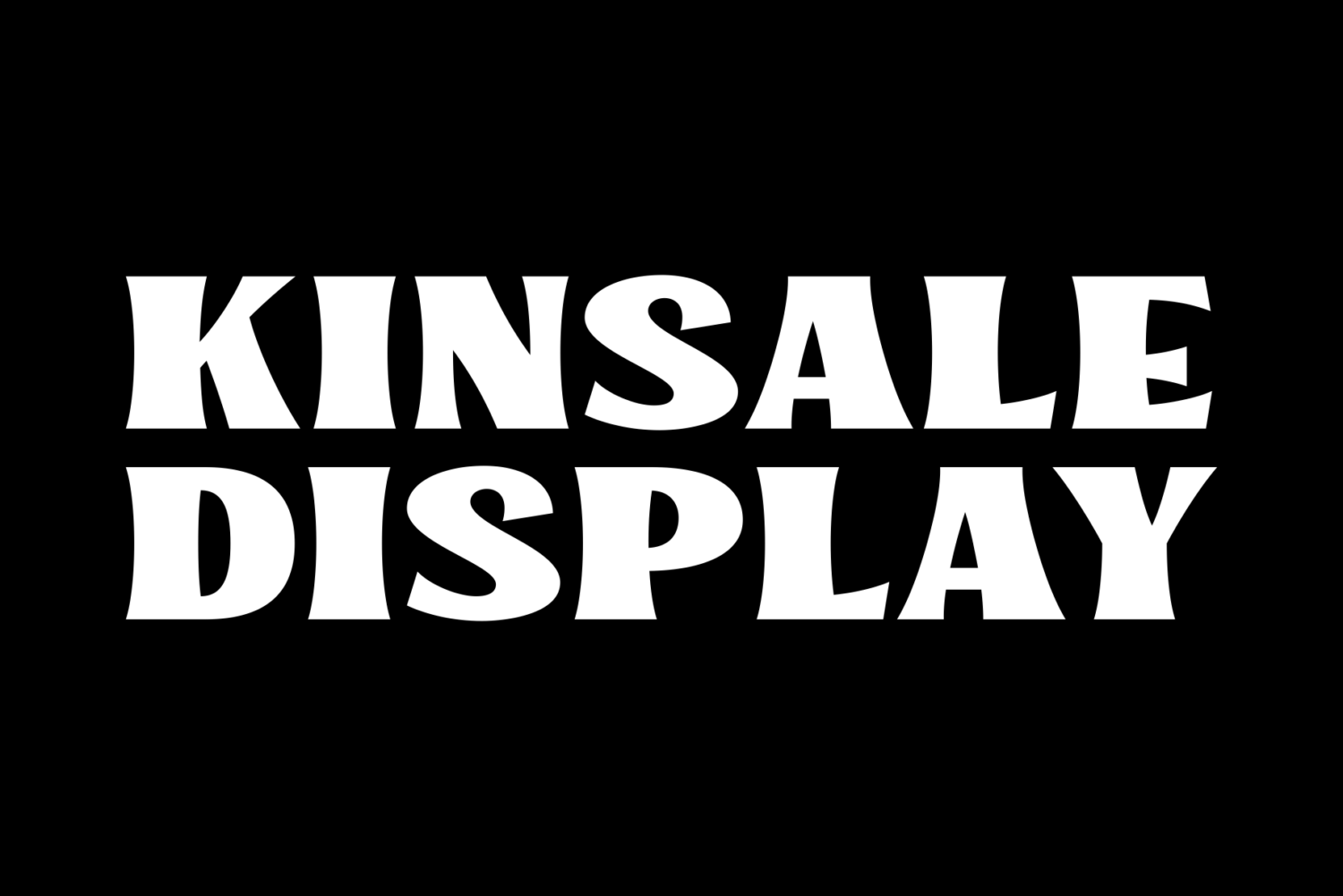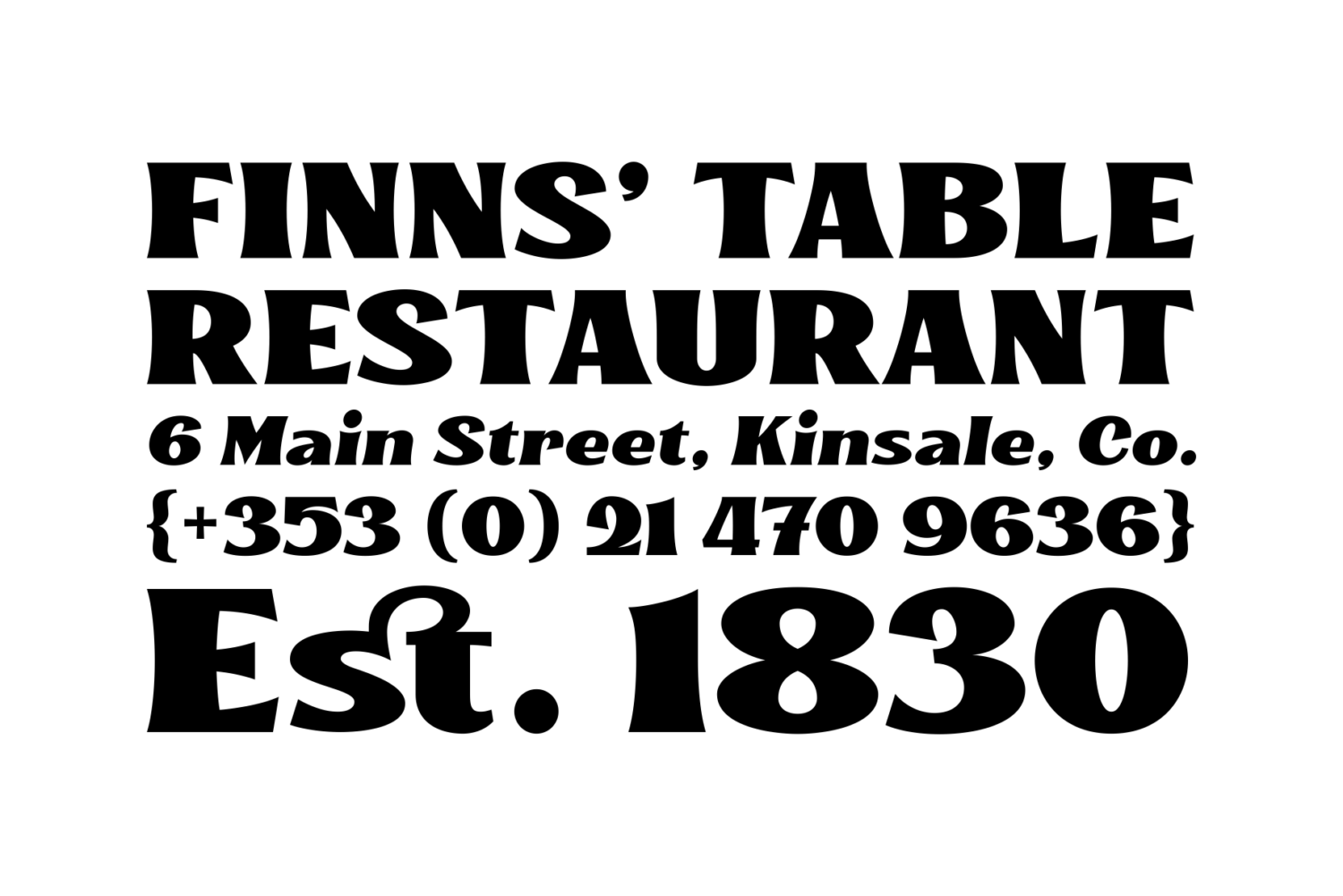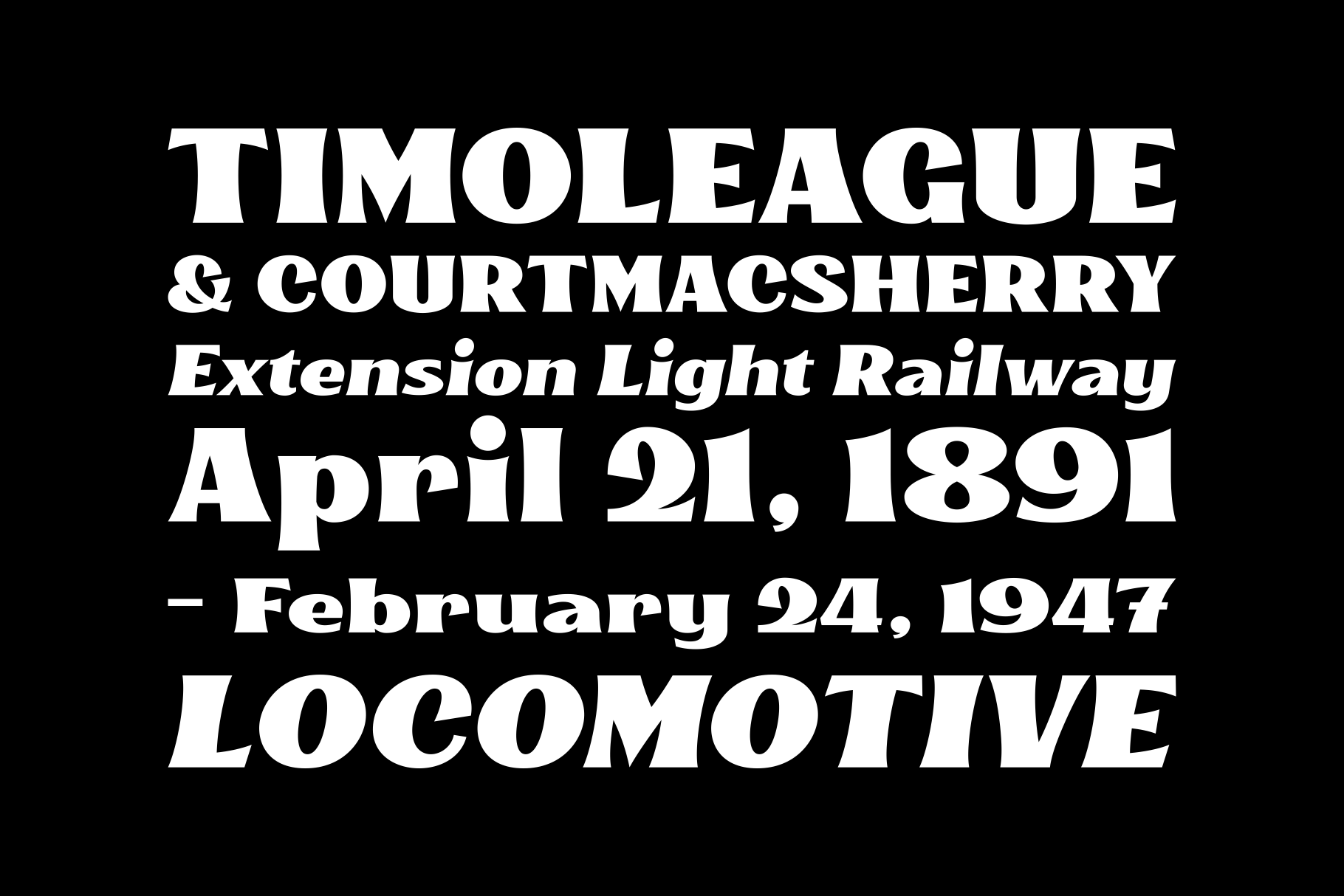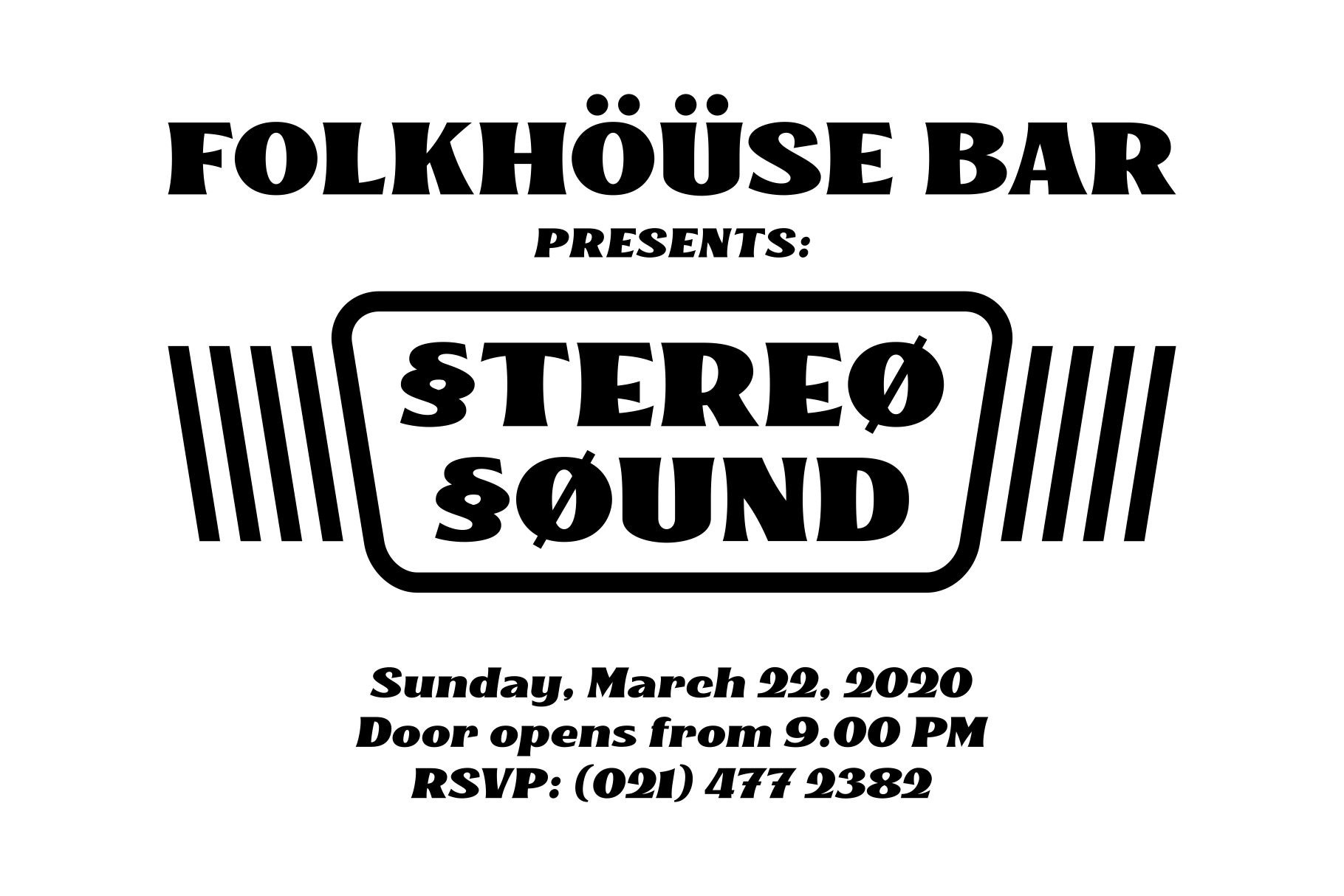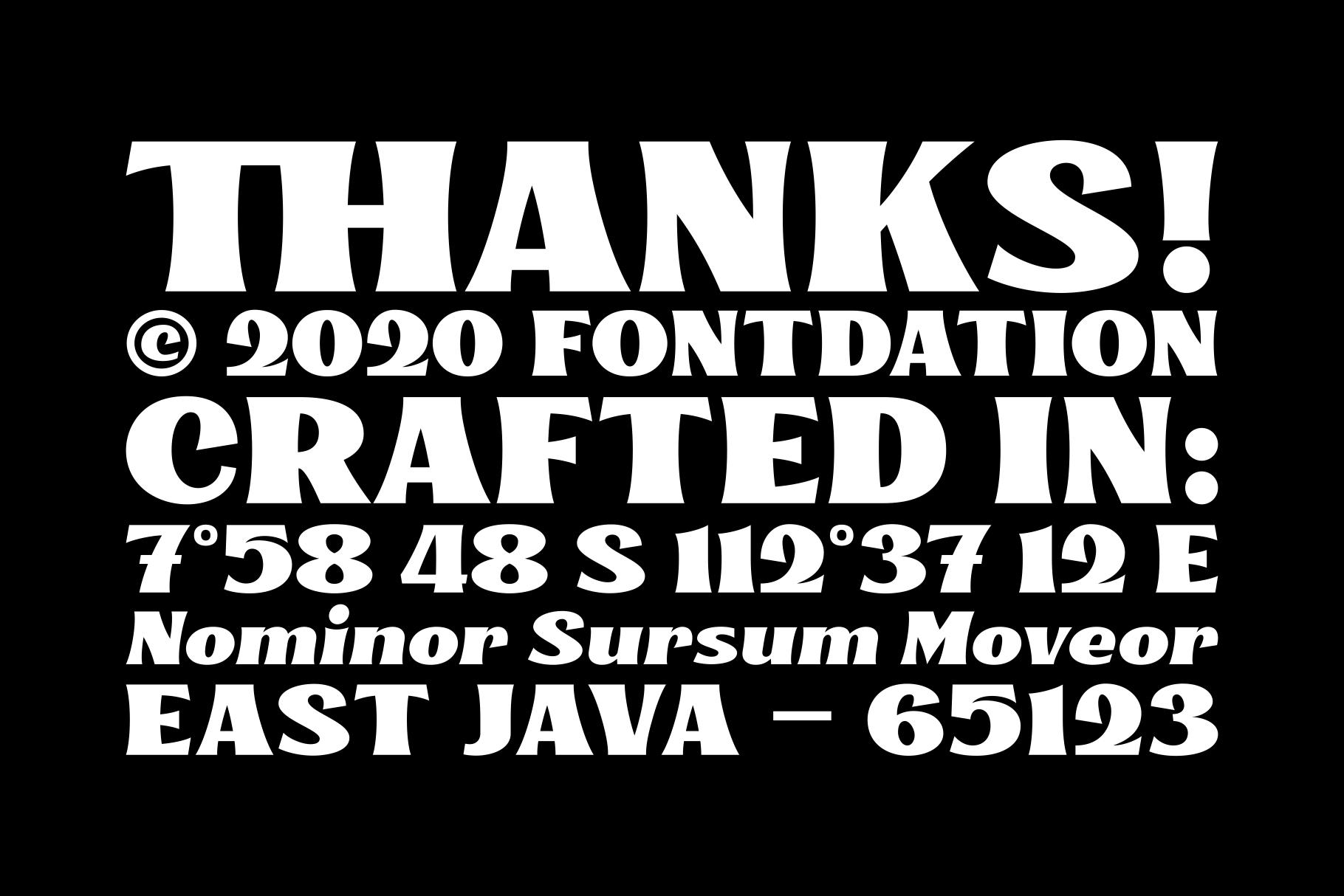
Kinsale Display Free Font
Kinsale Display Free Font is a bold and strong looking display font that not only heavily inspired by the vintage/classic letterforms, but also some touch of modern twists and absurdities. Mouse-crafted with high attention to details; clean lines, sharp edges, and tempting curves. Its wide and blocky letterforms make Kinsale is a great space killer. Suits best for title/headline, logo/logotype, packaging/label designs, etc. This free typeface was designed by a talented Fahrizal Tawakkal. If you like it don’t forget to check out the full version.